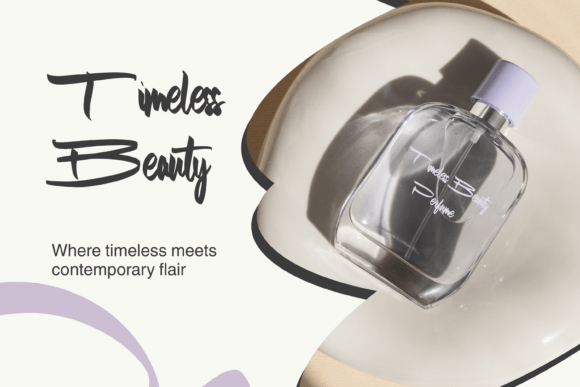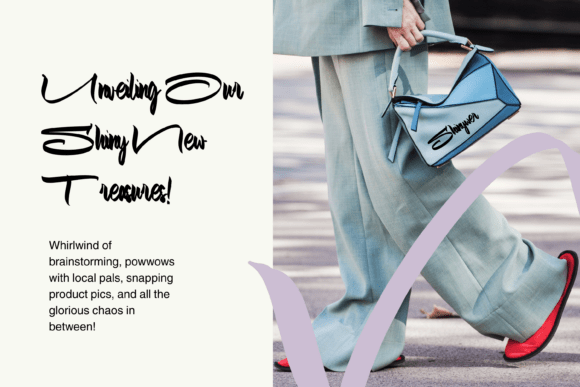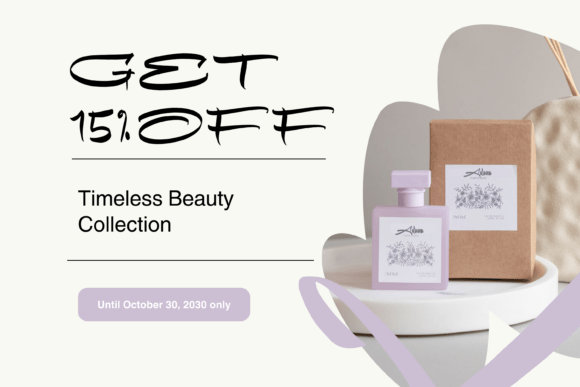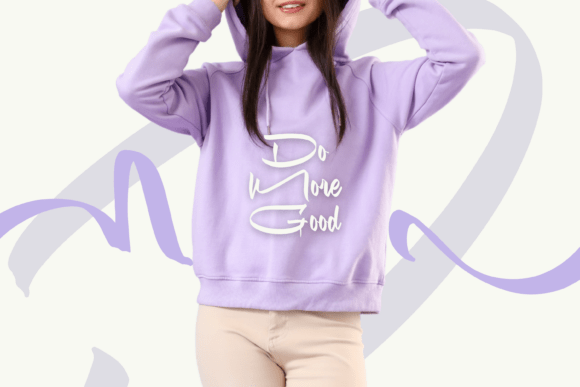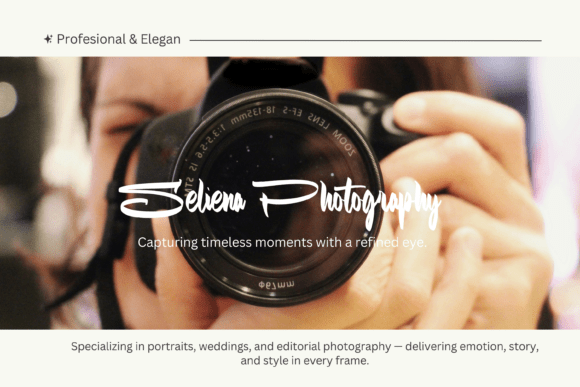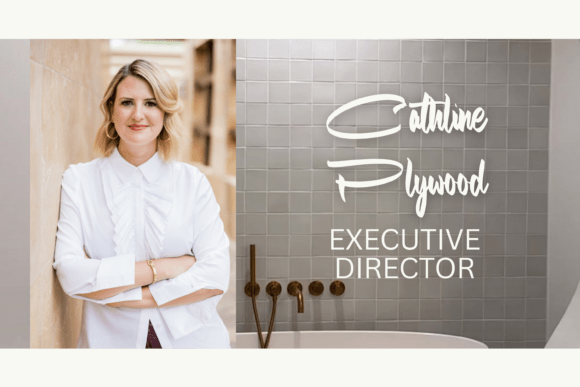
Bethany Font: Elevate Your Designs with Elegance and Sophistication
Are you looking for a font that adds a touch of charm and sophistication to your designs? Look no further than Bethany, a beautifully stylish and effortlessly classy script font. Whether you’re creating logos, magazine spreads, social media posts, or elegant branding, Bethany is the perfect choice to elevate your creative work.
What Makes Bethany Special?
Bethany is more than just a font – it’s a design statement. With its carefully crafted uppercase and lowercase letters, along with numbers, punctuation, and multilingual support, Bethany is ready to take your designs to the next level. Here are some of the key features that make Bethany stand out:
- Beautifully Stylish: Bethany’s script font is designed to add a touch of elegance and sophistication to any design.
- Effortlessly Classy: With its smooth lines and flowing curves, Bethany exudes a sense of refinement and luxury.
- Multilingual Support: Bethany supports multiple languages, making it a versatile font for designers working on international projects.
- Comprehensive Character Set: Bethany includes uppercase and lowercase letters, numbers, punctuation, and special characters, ensuring that you have everything you need to create stunning designs.
Bethany is a versatile font that can be used for a wide range of design projects. Here are some ideas to get you started:
- Logos: Create a lasting impression with a custom logo that showcases your brand’s personality and style.
- Magazine Spreads: Add a touch of elegance to your magazine spreads with Bethany’s sophisticated script font.
- Social Media Posts: Elevate your social media presence with eye-catching graphics and typography that showcase your brand’s unique voice.
- Elegant Branding: Create a cohesive brand identity with Bethany’s classy and refined script font.
Why Choose Bethany?
With so many fonts to choose from, why should you choose Bethany? Here are just a few reasons why Bethany stands out from the crowd:
- Unique and Memorable: Bethany’s script font is designed to be unique and memorable, making it perfect for brands that want to stand out.
- Easy to Read: Despite its elegant and refined design, Bethany is easy to read and understand, making it perfect for body text and headlines.
- Highly Versatile: Bethany can be used for a wide range of design projects, from logos and branding to magazine spreads and social media posts.
Tips for Using Bethany in Your Designs
Here are some tips for getting the most out of Bethany in your designs:
- Experiment with Font Sizes: Bethany looks great in a variety of font sizes, from large headlines to smaller body text.
- Play with Color: Bethany’s elegant script font looks great in a range of colors, from bold and bright to soft and pastel.
- Mix and Match: Try pairing Bethany with other fonts to create a unique and eye-catching design.
In conclusion, Bethany is a beautifully stylish and effortlessly classy script font that adds charm and sophistication to any design. With its carefully crafted uppercase and lowercase letters, along with numbers, punctuation, and multilingual support, Bethany is ready to elevate your creative work across various platforms. Whether you’re a designer, craft, or simply someone who appreciates great typography, Bethany is a font that’s sure to impress.